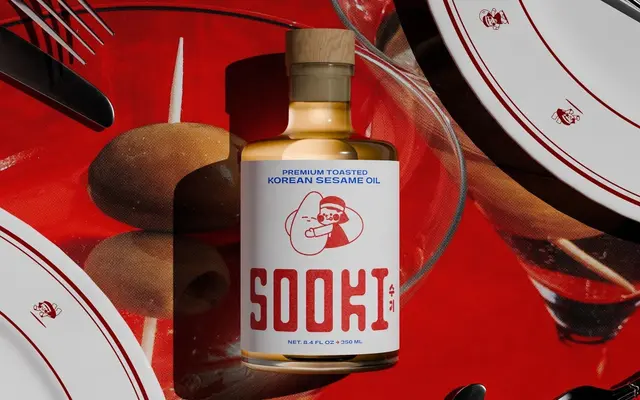
Gatwick
Pangram Foundry · Valerio Monopoli
A wide incise display family by Valerio Monopoli, distinguished by tapered stems and sharp terminals across three optical subfamilies — Glider, Jet and Jumbo.
Gatwick spans 24 styles in three subfamilies, each available as a variable cut, running from Hairline to Bold. The Glider subfamily sits at lower contrast; Jet and Jumbo introduce increasing high contrast, intended for elegant headlines and subheadings. Tapered stems and sharp terminals set it apart from more neutral wide grotesques, giving the family a distinctly extravagant character suited to branding and packaging.
Pangram categorise Gatwick as Display, Expressive, Humanist and Sans Serif. Its defining characteristics — tapered stems, sharp terminals and high-contrast optical size variants — place it squarely in the incise display tradition with a humanist sensibility.